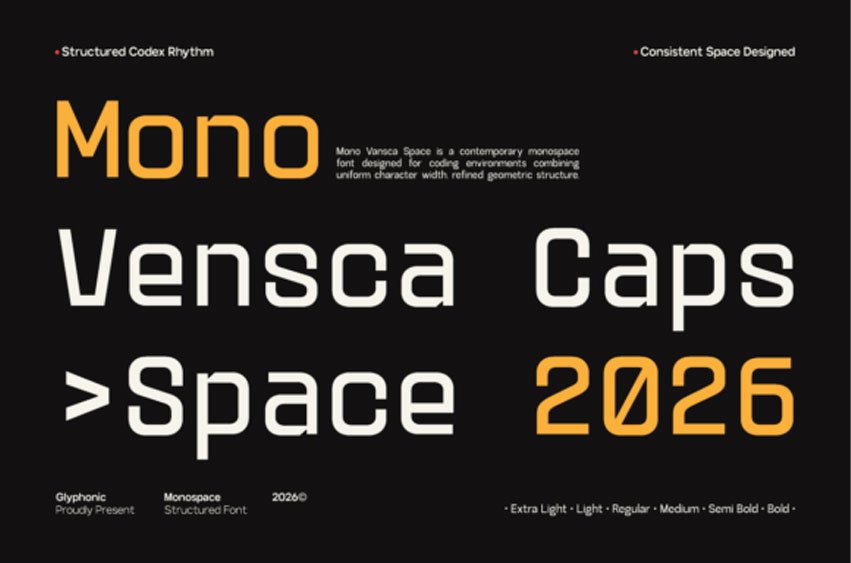
Mono Vensca Space Font Precision meets modern aesthetics in Mono Vensca Space, a high-performance monospace font family engineered for the digital age.
Designed with a “Structured Codex Rhythm,” this typeface combines a rigid geometric foundation with refined, clean terminals to ensure maximum readability in coding environments, technical documentation, and futuristic UI designs.
Its consistent spacing and uniform character width provide a professional, organized look that excels in both dense data visualization and minimalist editorial layouts.